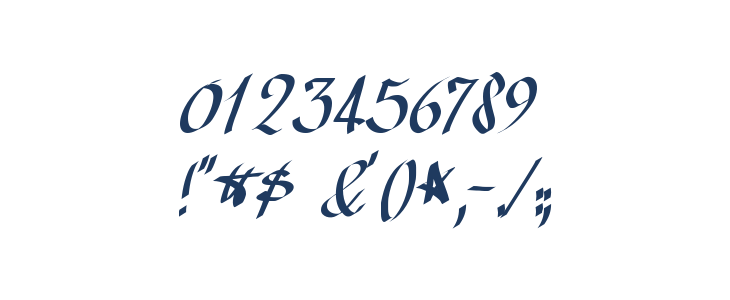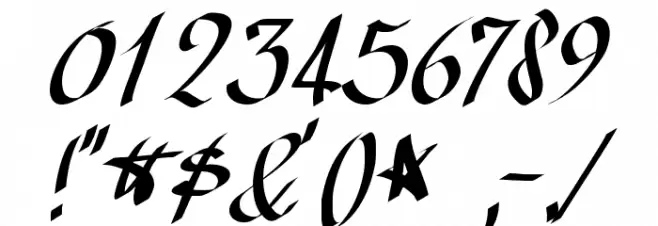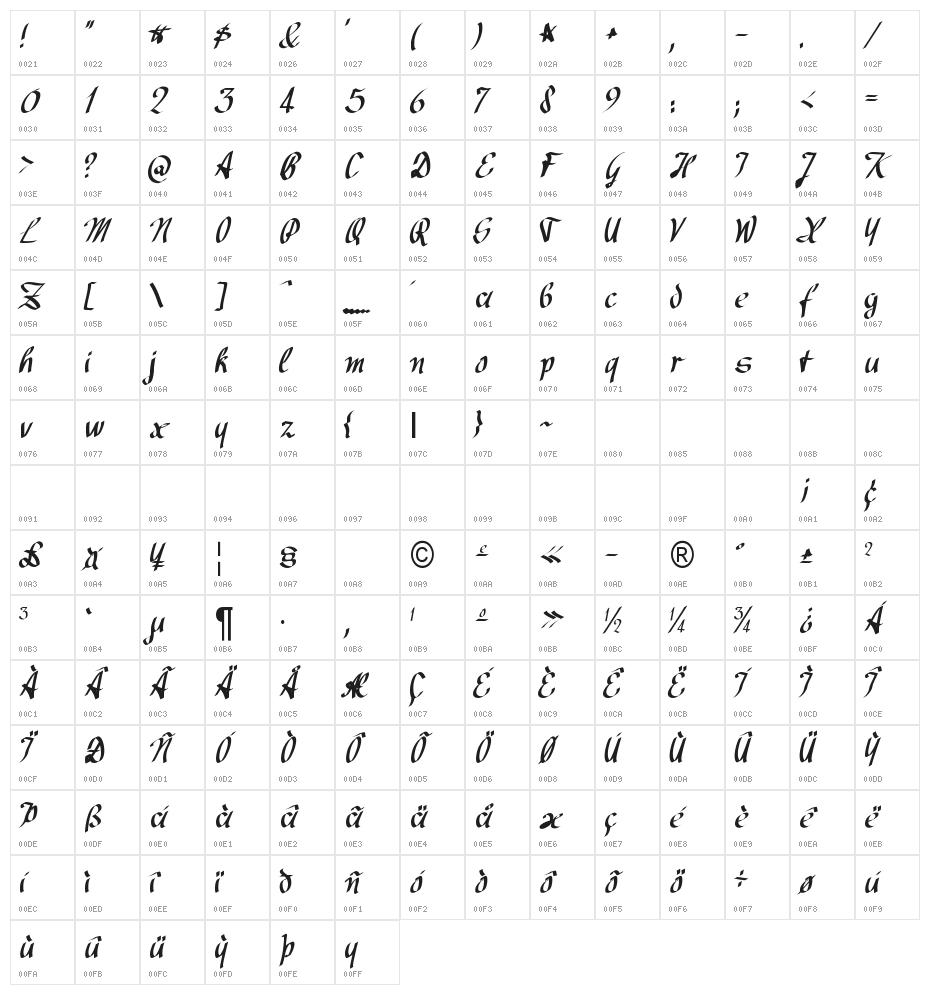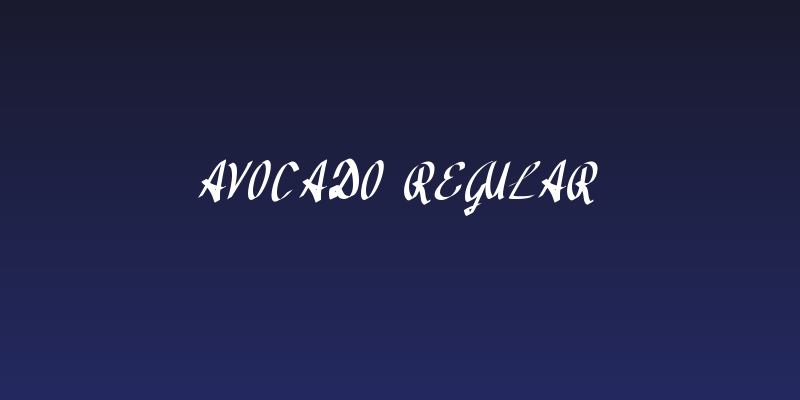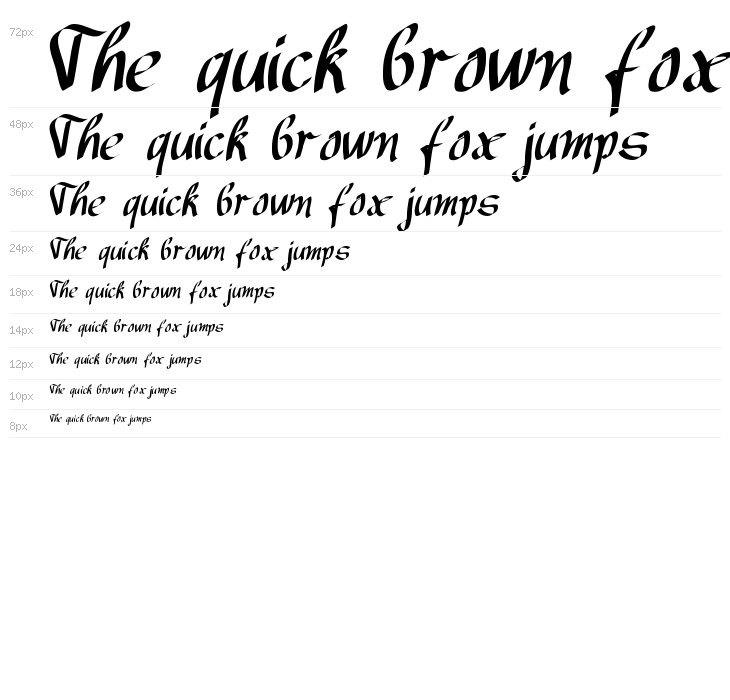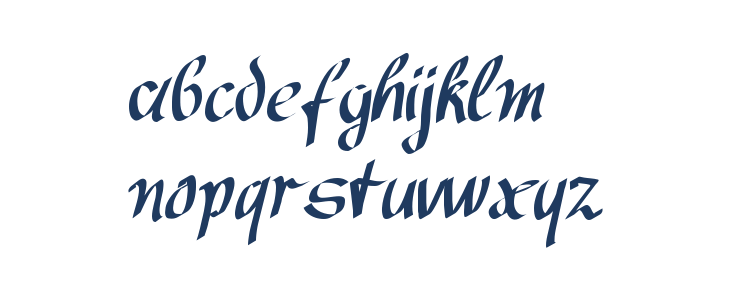
Avocado Regular Font
Avocado Regular Description
This font features a bold and dynamic script style with a calligraphic flair. The characters are sharply defined with a high contrast between thick and thin strokes, giving it a dramatic and elegant appearance. The uppercase letters are particularly striking, with sweeping curves and pointed edges that convey a sense of movement and sophistication. The lowercase letters maintain the same fluidity, with some characters extending below the baseline, adding to the font's expressive nature. Numbers and special characters are equally stylized, ensuring consistency across all elements. This font is ideal for projects that require a touch of elegance and artistic flair.